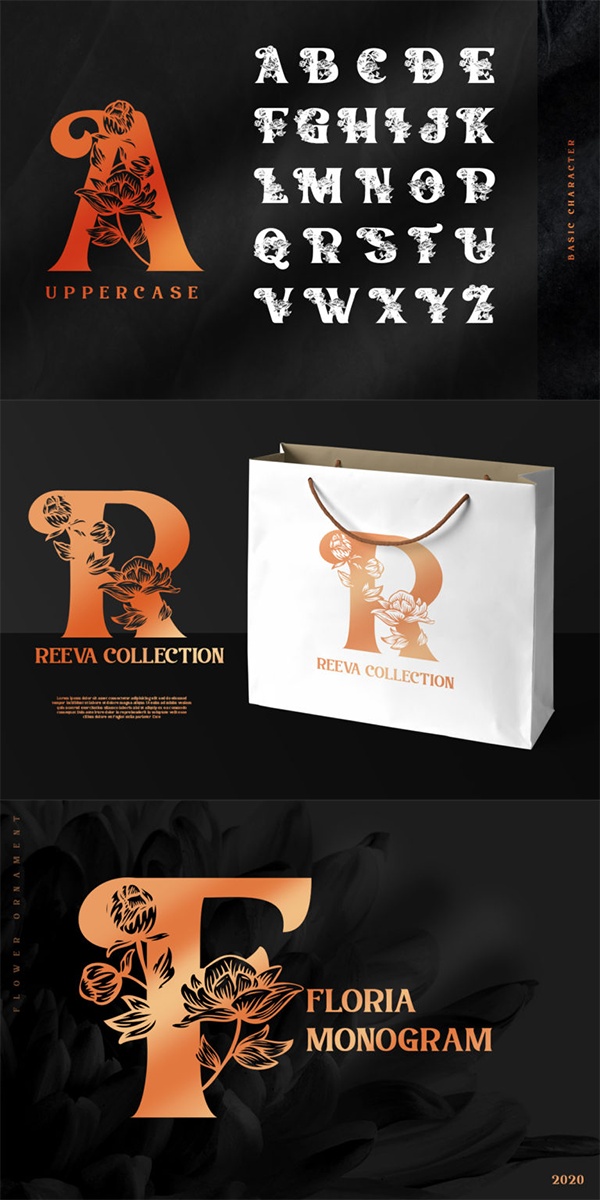
Floria Monogram Font
About Floria Monogram
Floria is a beautiful decorative font, featuring elegant flowers. Get inspired by its authentic feel and use it to create gorgeous wedding invitations, mugs, poster, lovely stationary art, eye-catching social media posts, cute greeting cards, and so much more. The font also supports a basic set of multilingual glyphs. See the previews above to get some inspiration on how you can use them.